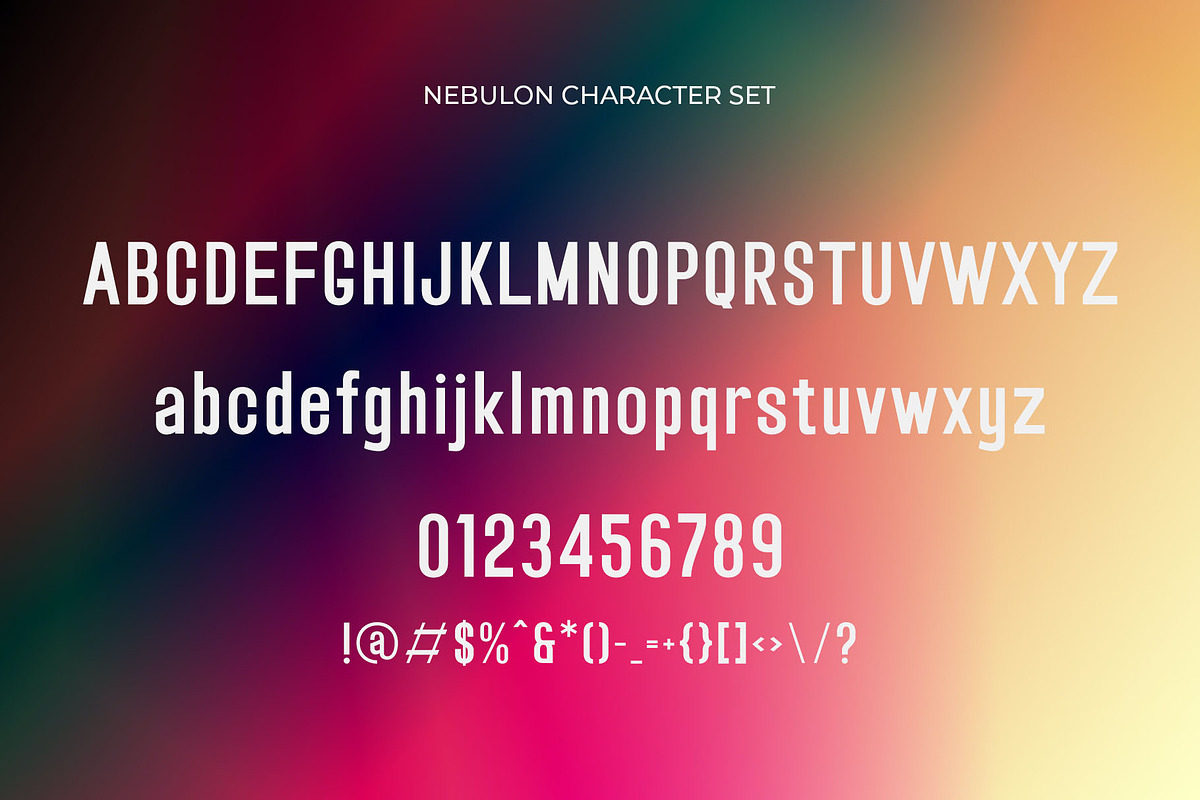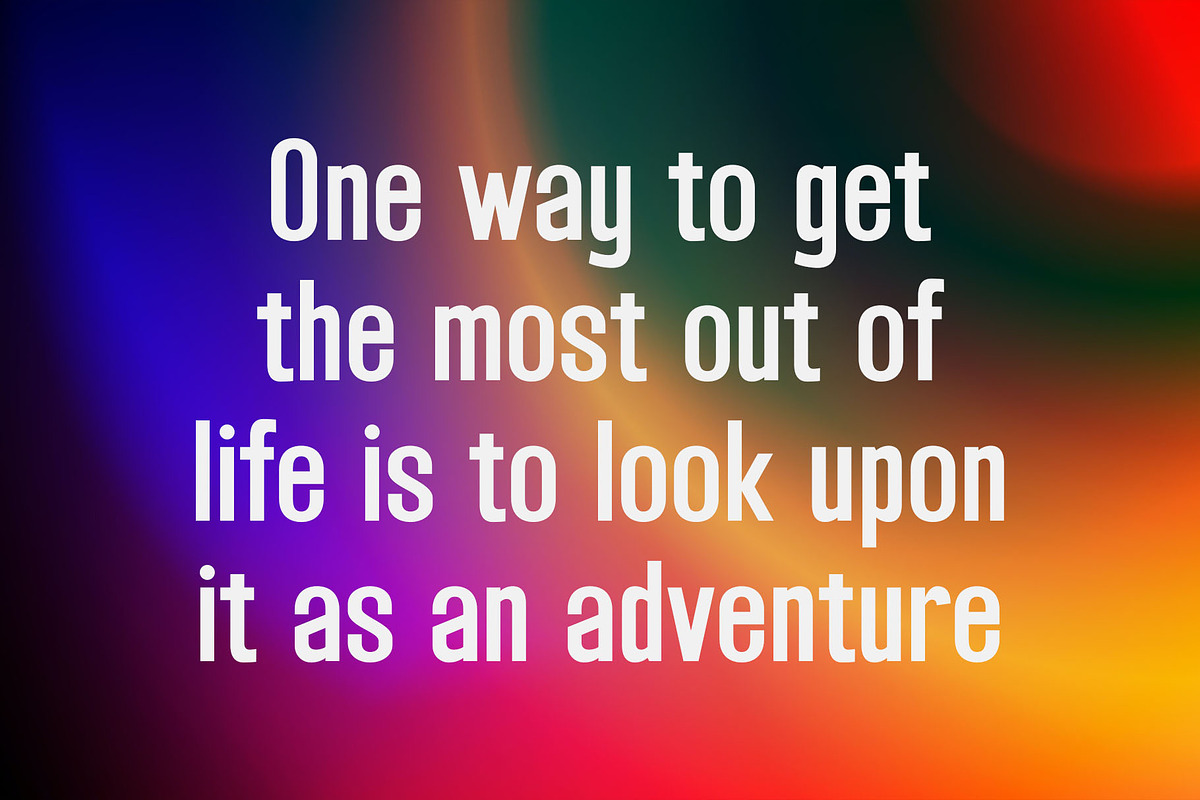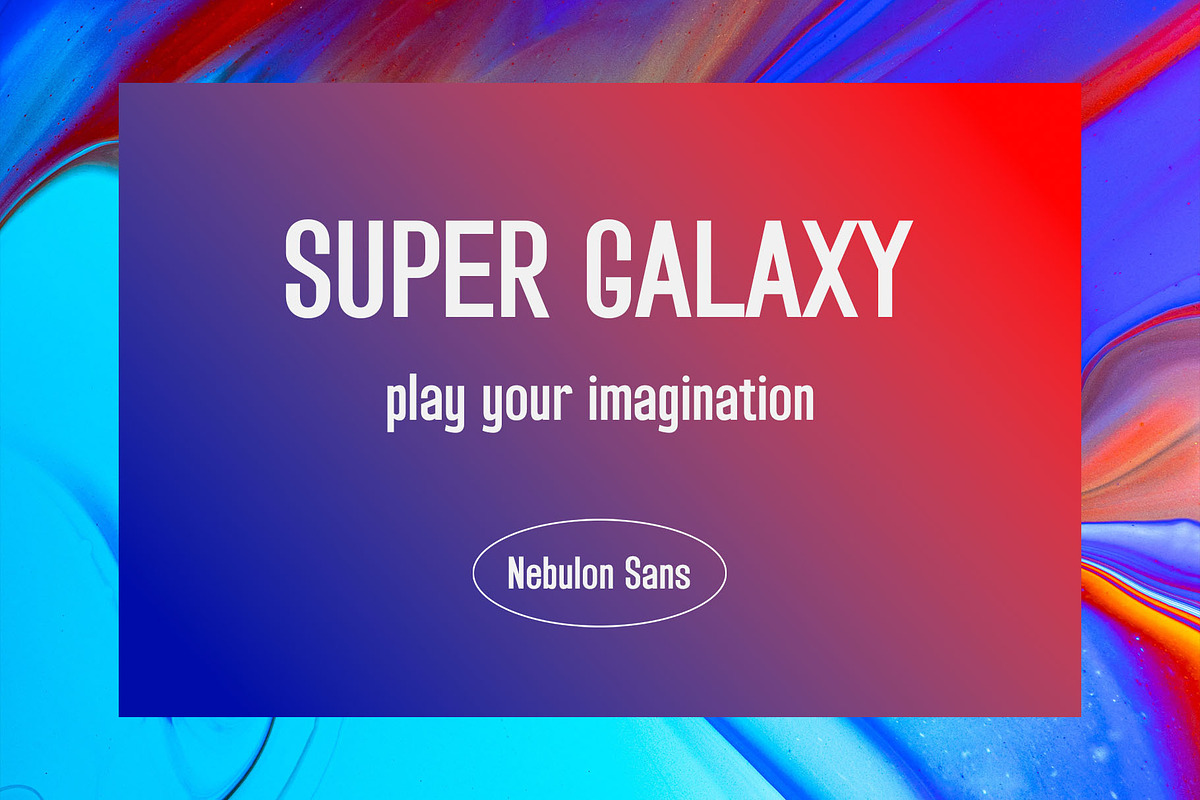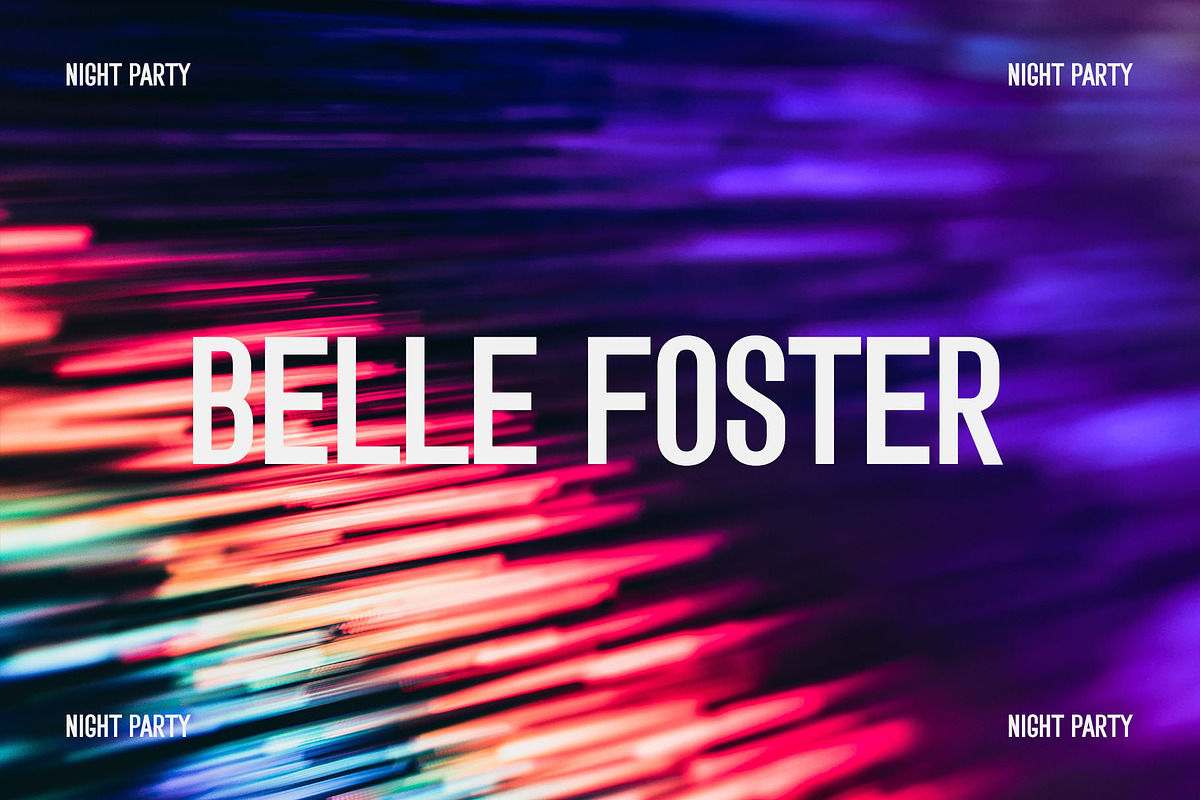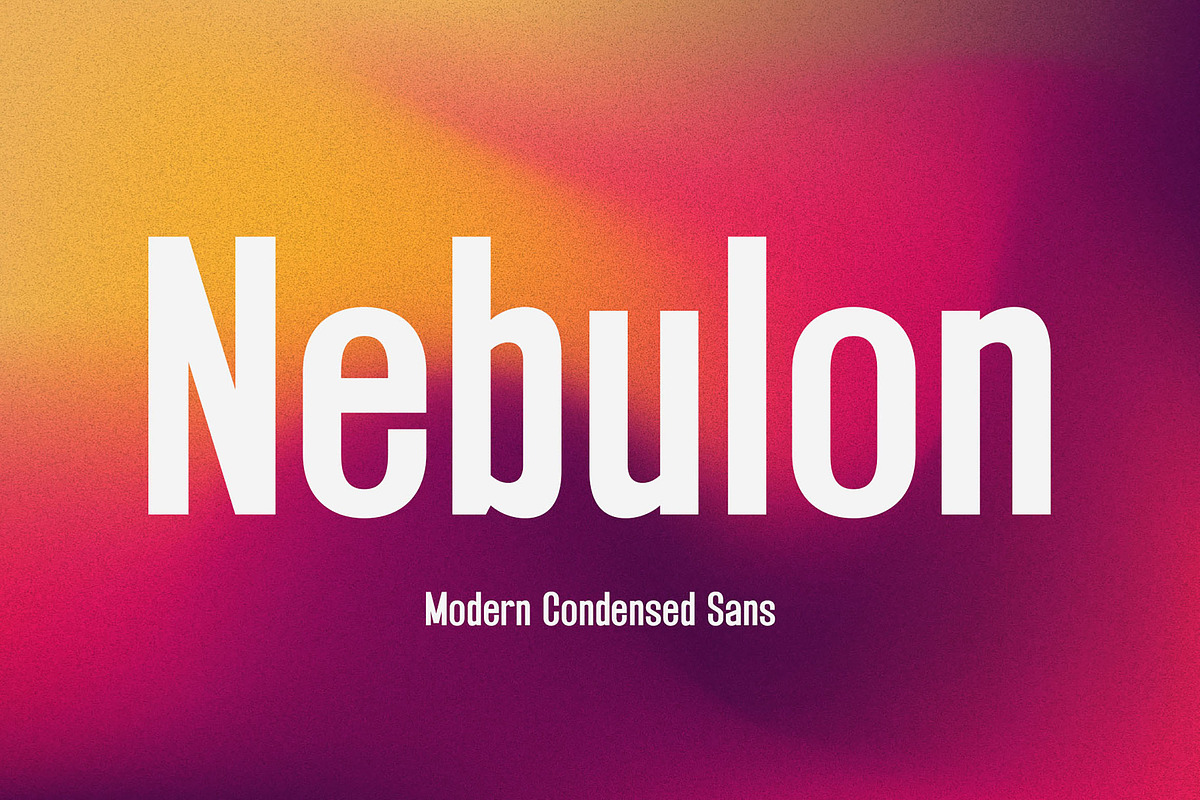
Nebulon - Modern Condensed Sans
Introducing our new Nebulon, modern sans serif font with elegant style this is perfect for branding, logos, invitation, magazines, product packaging and more.